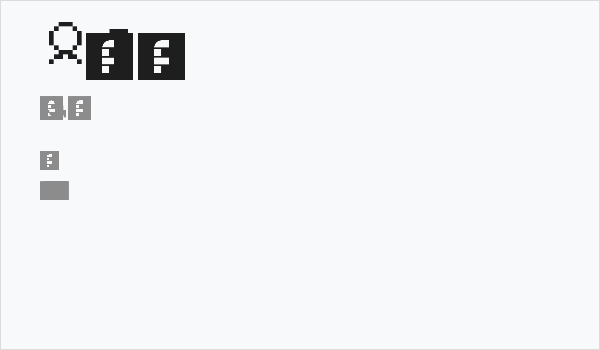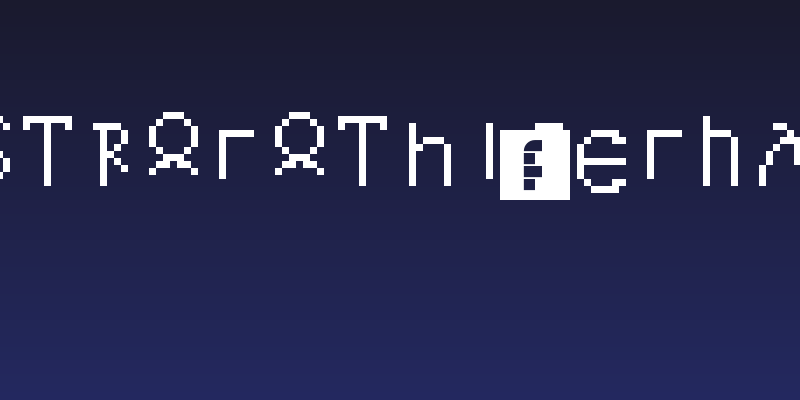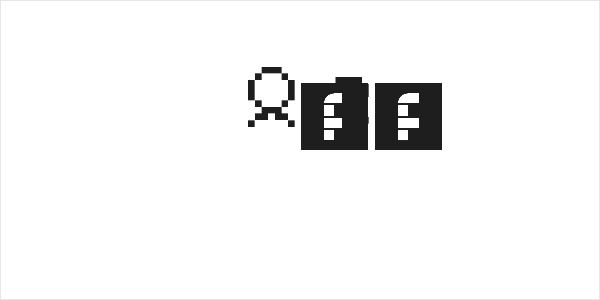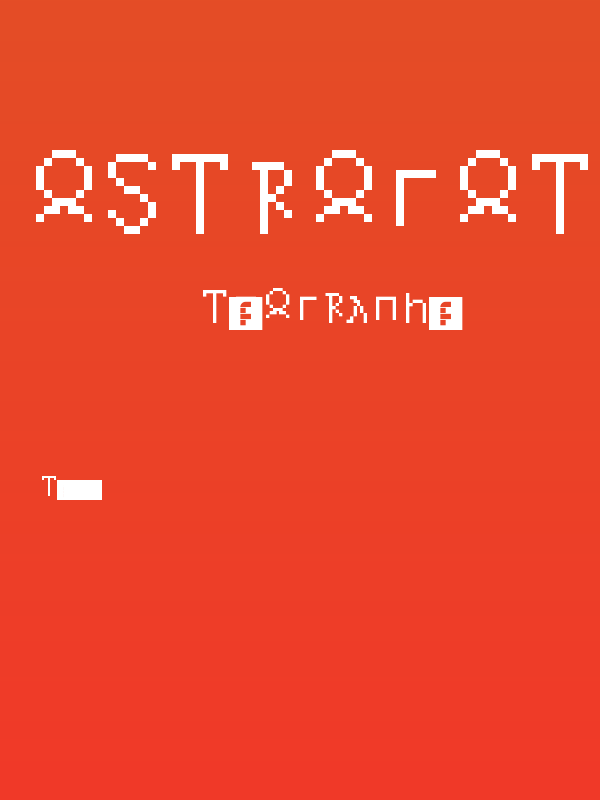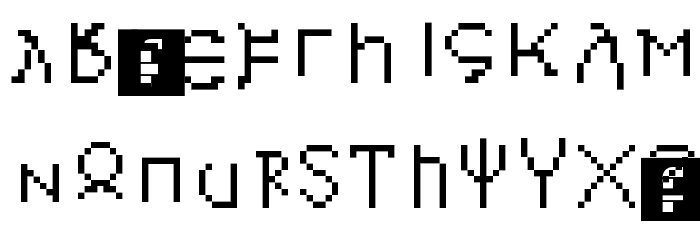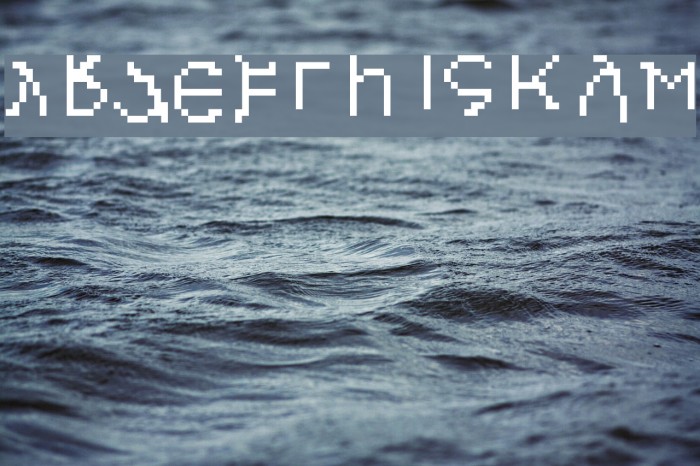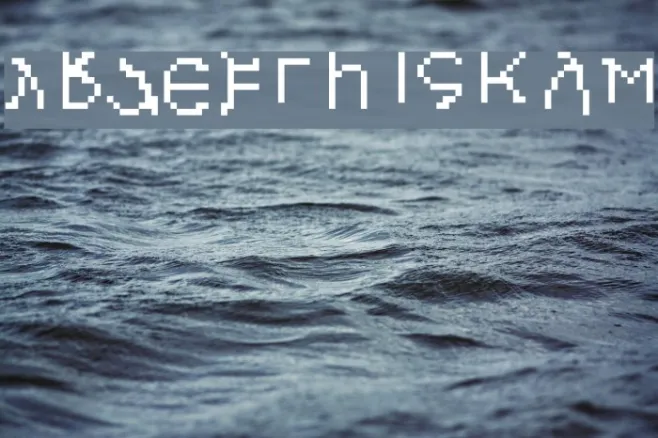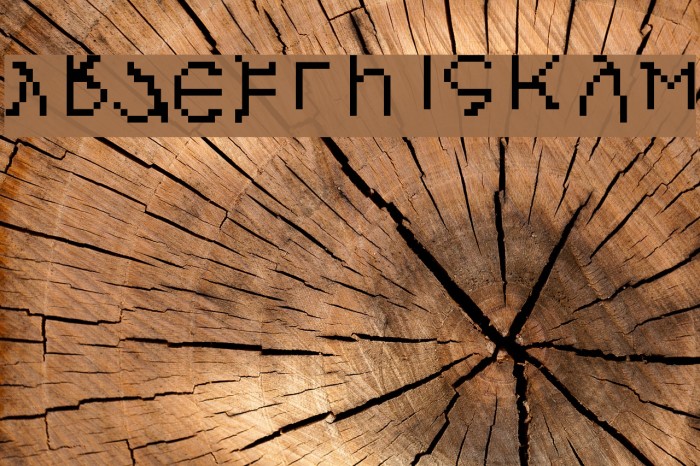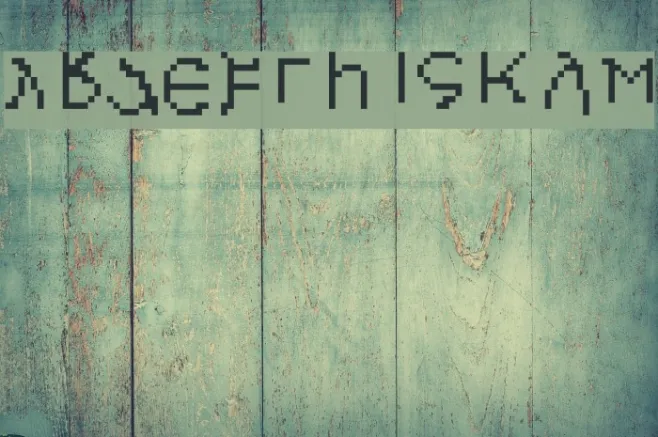
Ostrogothic Regular Font
Ostrogothic Regular Description
This font features a unique, pixelated design reminiscent of early digital typography. The characters are constructed with a blocky, geometric style, giving it a distinct retro and technological feel. Each letter is composed of straight lines and right angles, creating a uniform and consistent appearance across the alphabet. The uppercase and lowercase letters maintain a similar structure, enhancing the cohesive look. The numerals and special characters follow the same design principles, ensuring visual harmony. This font's aesthetic is ideal for projects that aim to evoke a sense of nostalgia or a connection to digital and gaming cultures.
| Proposed Projects | Ideal for video game design, digital art projects, retro-themed posters, and tech-related branding. |